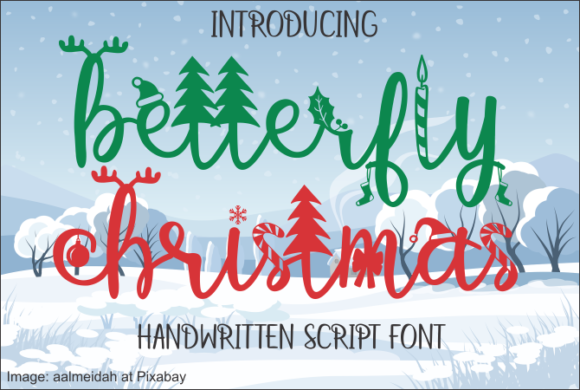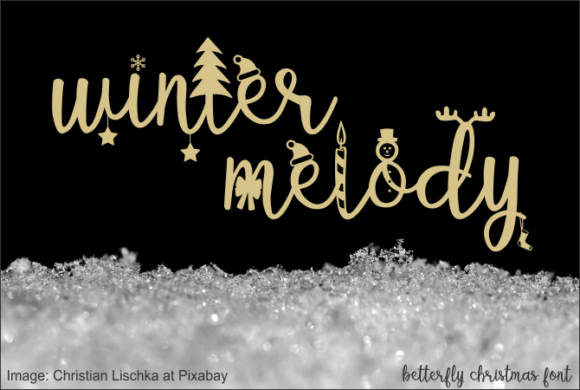
Betterfly Christmas Font
Betterfly Christmas is a fun decorative font with a Christmas holiday theme. Make your designs look more real and attractive, use them together with your creative ideas so that they will produce amazing designs!